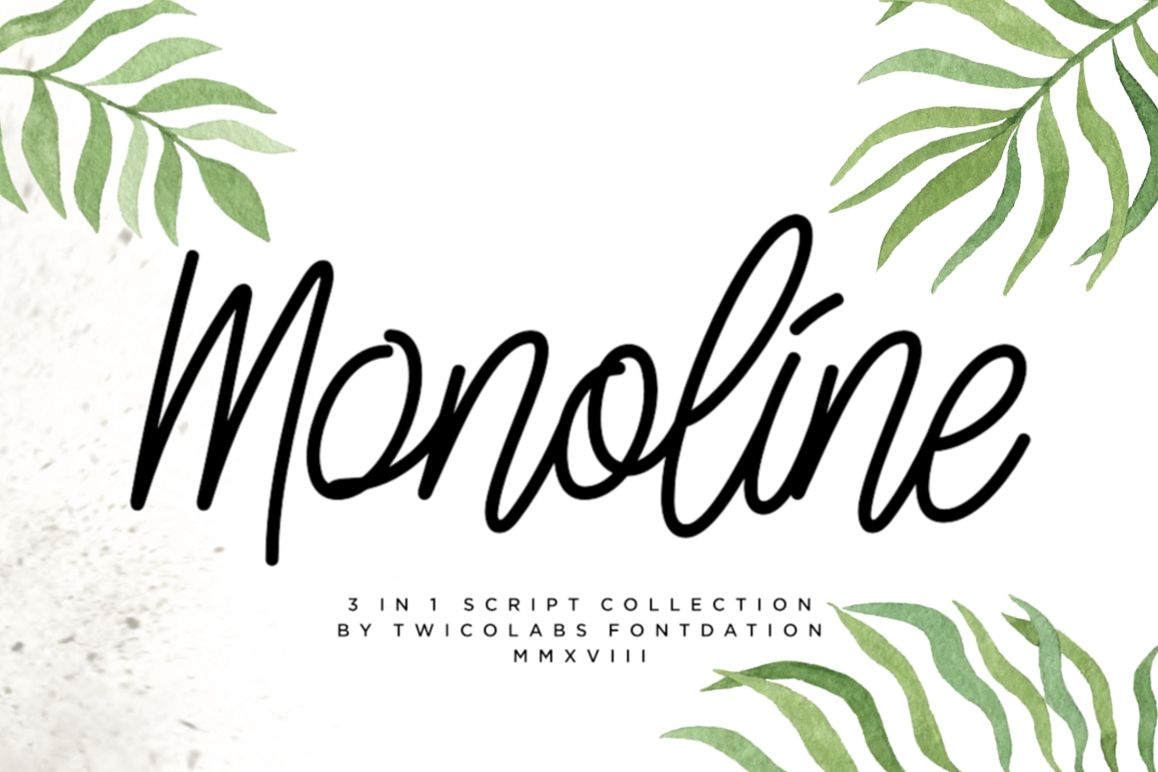
3 in 1 Monoline Script Font
Jalisco
Slainte Script
Linoleo Script
Our 3 in 1 Monoline Script Font is a bundle of our latest monoline script(s)
including Jalisco, Linoleo and Slainte Script.